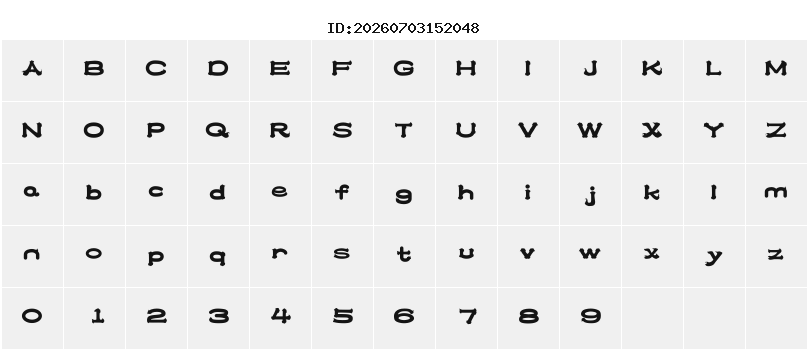
274-上首战魂体 Preview
• Font Name: 274-上首战魂体
• Font ID: 274-SS Zhan Hun Zhi Ti:Version 6.00
• Full Font Name: 274-上首战魂体
• Version: Version 6.00 March 5, 2024
• PostScript Name: 274-SSZhanHunZhiTi
• Manufacturer: 上首造字
About 274-上首战魂体.ttf
274-上首战魂体.ttf is a modern, elegant sans-serif font designed for ultimate readability and visual harmony. Perfect for branding, headlines, web design, and print materials.